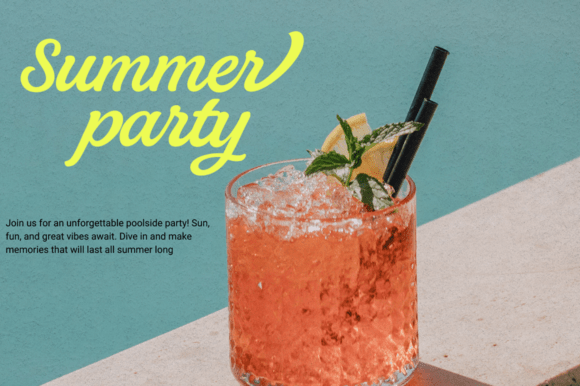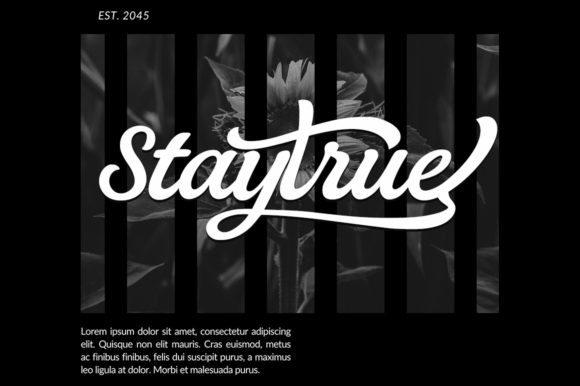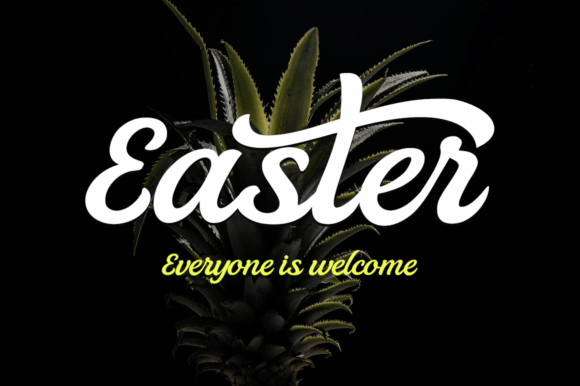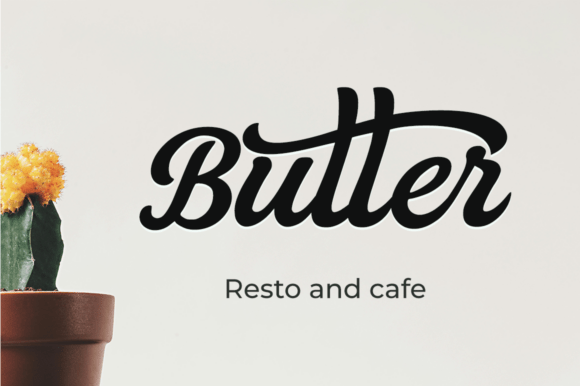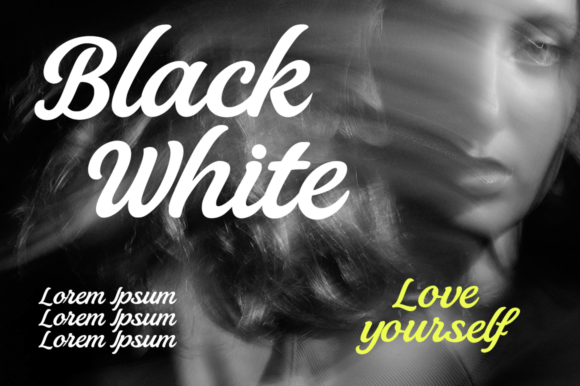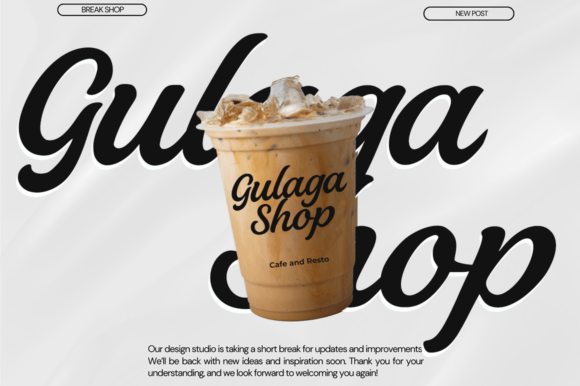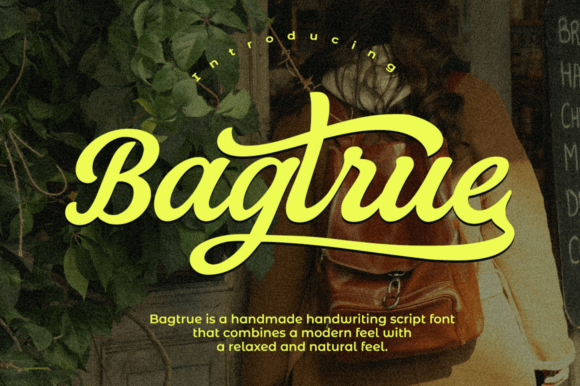
Introducing Bagtrue Font: The Perfect Blend of Modern and Handmade
In the world of typography, fonts play a crucial role in conveying the tone and personality of a brand. For designers and crafters looking for a unique and eye-catching style, Bagtrue Font is an excellent choice. This handmade script font seamlessly blends a modern feel with a relaxed, natural look, making it perfect for a wide range of design applications.
The Unique Characteristics of Bagtrue Font
Bagtrue Font is designed with a smooth, flowing stroke that creates a dynamic and elegant character. Each letter is carefully crafted to convey a sense of movement and fluidity, making it perfect for designs that require a creative and expressive touch. The font’s distinctive feature is its beautifully curved, long swoosh detail, which adds a lively and playful touch to any design.
Perfect for Branding, Logos, and Packaging
Bagtrue Font is an excellent choice for branding, logos, product packaging, and social media designs that require a bold yet flexible shape. Its unique blend of modern and handmade elements makes it stand out from other fonts, allowing designers to create visually appealing designs that capture the attention of their audience. Whether you’re looking to create a logo, brochure, or social media post, Bagtrue Font is the perfect choice.
Enhance Your Design with Bagtrue Font
One of the key benefits of Bagtrue Font is its ability to enhance the visual appeal of a design without losing its authentic, handmade feel. The font’s bold yet flexible shape makes it easy to pair with other design elements, creating a cohesive and visually appealing design. Whether you’re a designer or crafter, Bagtrue Font is an excellent addition to your typography collection.
What Makes Bagtrue Font Stand Out?
- Handmade script font: Bagtrue Font is carefully crafted to convey a sense of authenticity and uniqueness.
- Modern feel: The font’s smooth, flowing stroke creates a dynamic and elegant character.
- Relaxed, natural look: Bagtrue Font’s curved, long swoosh detail adds a lively and playful touch to any design.
- Perfect for branding, logos, and packaging: The font’s bold yet flexible shape makes it easy to use in a wide range of design applications.
Tips for Using Bagtrue Font
To get the most out of Bagtrue Font, here are a few tips:
- Pair with other design elements: Combine Bagtrue Font with other design elements, such as images or graphics, to create a cohesive design.
- Experiment with different sizes: Try using Bagtrue Font in different sizes to create visual interest and hierarchy.
- Use in digital and print designs: Bagtrue Font is perfect for both digital and print designs, making it a versatile addition to your typography collection.
| Font Name | Bagtrue Font |
| Author | cocodesign |
Bagtrue Font is a unique and eye-catching handmade script font that blends a modern feel with a relaxed, natural look. Its smooth, flowing stroke and beautifully curved, long swoosh detail make it perfect for branding, logos, product packaging, and social media designs. With its bold yet flexible shape, Bagtrue Font enhances the visual appeal of a design without losing its authentic, handmade feel. Whether you’re a designer or crafter, Bagtrue Font is an excellent addition to your typography collection.